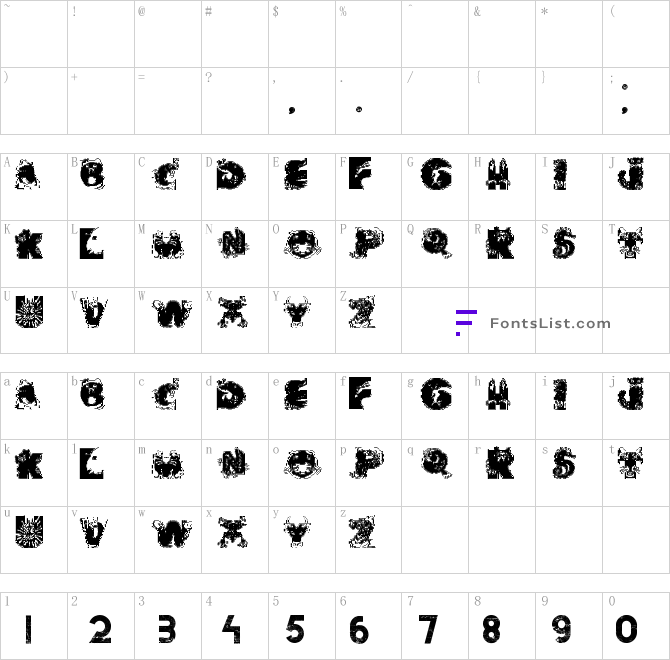
- Font Name:Animal Alphabet II
Animal-Alphabet-II.ttf is a very beautiful artistic font, Animal-Alphabet-II.ttf is widely used in the design and printing of various books and pictures,Animal-Alphabet-II.ttf has a strong visual impact,Animal-Alphabet-II.ttf is a commonly used font in newspapers, magazines and books, and is used in posters, e-commerce Poster design, store design, logo design, font design and other fields.Animal-Alphabet-II.